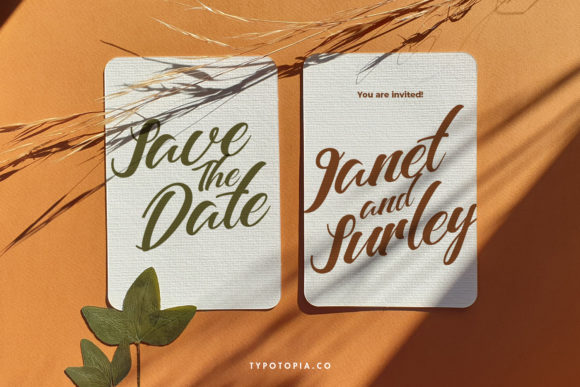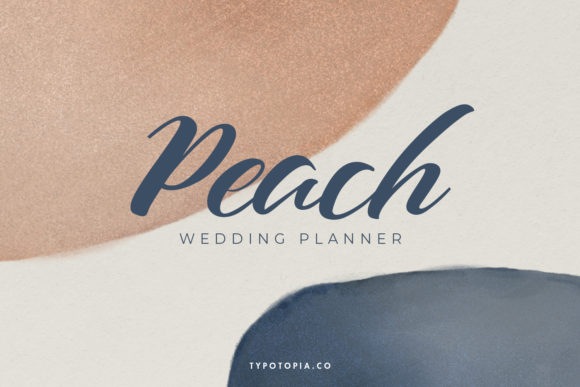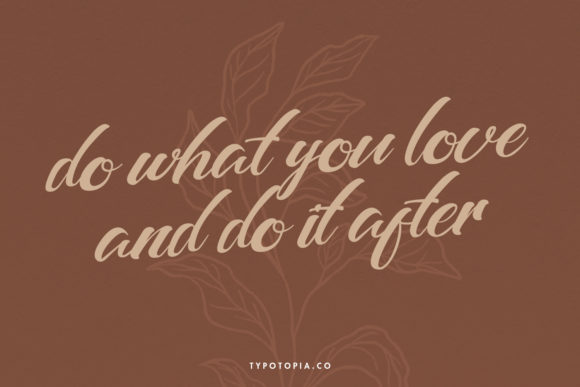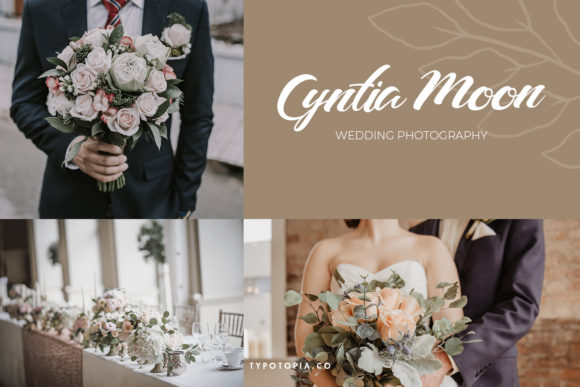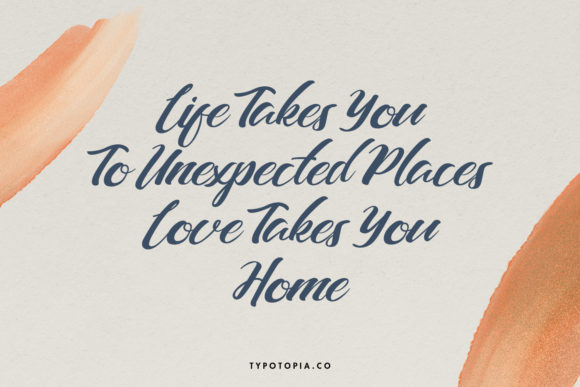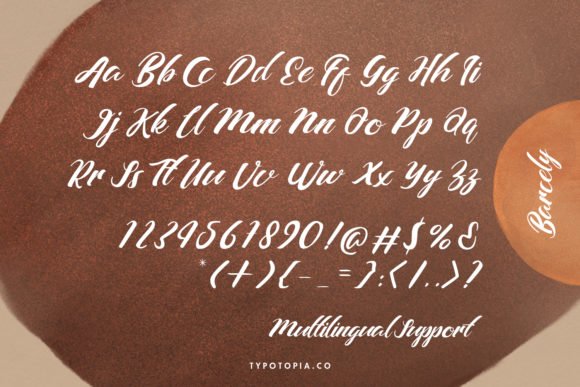
Introduction to Barcely Font
As a designer, have you ever found yourself searching for the perfect font to match the whimsical atmosphere of a romantic getaway or a fairy-tale inspired wedding invitation? The search can be endless, but what if I told you that I’ve stumbled upon a hidden gem that will make your creative project shine? Meet the enchanting Barcely Font, a high-quality, delicate handwritten font that will transport you to a world of elegance and sophistication.
With its smooth and flowing lines, Barcely Font is the perfect design resource for any creative project that requires a touch of romance and whimsy. Whether you’re working on a free download project or a commercial design, this font is sure to impress. Its transparent background and versatility make it an ideal choice for designers who want to add a personal touch to their work.
Key Features of Barcely Font
- High-quality design for creative projects with a transparent background, ideal for graphic designers and digital artists.
- This font features a large character set, including uppercase and lowercase letters, numbers, and punctuation marks.
- Barcely Font is designed to be highly customizable, allowing users to adjust the font’s style and appearance to suit their creative project’s needs.
- This unique font is perfect for designers looking to add a touch of elegance and sophistication to their designs, with its sleek and modern design.
Honest Review: Barcely Font
As a designer, I’m always on the lookout for high-quality fonts that can elevate my creative projects. Recently, I had the chance to try out the Barcely Font, and I must say it’s a great addition to any design resource.
What works well: ✨ The Barcely Font is incredibly versatile and can be used for a wide range of creative projects, from logos to web design. The font is also available for free download, which is a huge plus. The transparent background option is also a great feature, allowing me to easily overlay text on images.
- Highly versatile font suitable for various design projects
- Transparent background option for easy text overlay
Limitations: ⚠️ While the Barcely Font is a great addition to any design resource, I found that it’s not ideal for small text sizes. The font can become quite pixelated, which may not be suitable for all design projects.
Overall, I’m really impressed with the Barcely Font. It’s a great option for designers who are looking for a high-quality font that’s easy to use and customize. With its versatility and free download option, it’s definitely worth checking out.
Tips for Getting the Most Out of Barcely Font
Use the Barcely Font in conjunction with a transparent background to create a high-quality design that stands out. Experiment with different font sizes and colors to add depth and visual interest to your project.
The Barcely Font is a versatile design resource that can be used in a variety of creative projects, including logos, branding materials, and social media graphics. Its high-quality design and transparent background make it an ideal choice for designers looking to add a touch of sophistication to their work.
Great Vibes Font is a great alternative to Barcely Font because it offers a more refined and sophisticated look. While Barcely Font is more playful and fun, Great Vibes Font is more elegant and versatile.
Can I use Barcely Font with a transparent background?
Yes, Barcely Font has a transparent background, making it perfect for use on various backgrounds. You can easily adjust the opacity and layering to achieve the desired effect. This feature is especially useful for designers who need to create visually appealing designs with complex backgrounds.